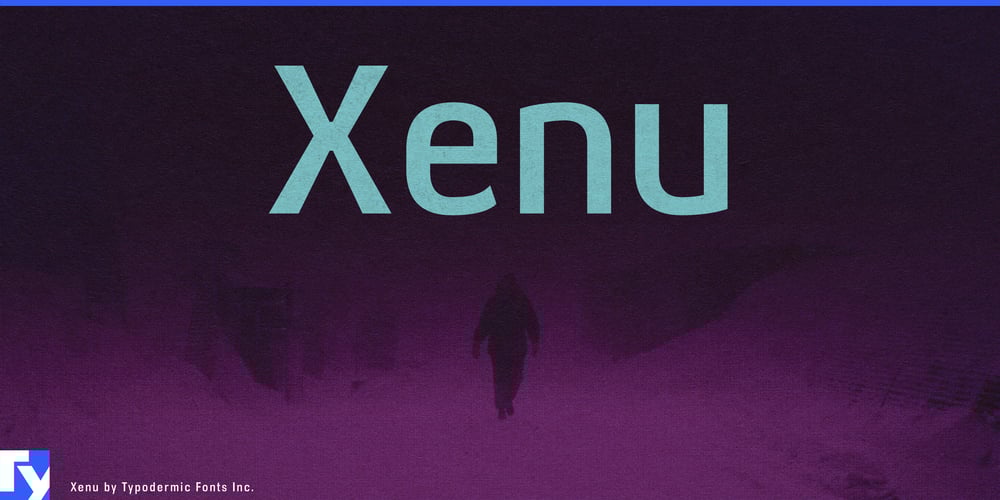
Xenu
Xenu font
Xenu Font Family was designed by Ray Larabie and published by Typodermic. Xenu contains 8 styles and family package options. In the realm where precision meets design, Xenu emerges as the epitome of technical sophistication. This typeface, inspired by the uncompromising clarity of industrial standards like DIN, radiates an aura of cold efficiency that commands attention in any professional context.Xenu’s impassive letterforms are meticulously crafted to embody the future of industrial aesthetics. Its rigid structure and clinical lines serve as a visual representation of unwavering accuracy, making it the ideal choice for projects that demand absolute precision. From blueprints to data visualizations, Xenu imbues every character with a sense of mechanical perfection. With four weights and their italic counterparts, Xenu offers a spectrum of typographic intensity. This range allows for nuanced communication in technical documents, from the subtle emphasis in user manuals to the bold declarations in engineering reports. Each weight maintains Xenu’s core identity—a typeface that speaks the language of technology with fluency and authority.Xenu’s utility extends far beyond its visual impact. It serves as a linguistic powerhouse, supporting an extensive array of Latin-based European writing systems. This typeface effortlessly traverses linguistic boundaries, from the fjords of Norway to the steppes of Central Asia, ensuring your technical message maintains its clarity across diverse markets.In a world driven by data and precision, Xenu stands as the vanguard of typographic communication. It’s a statement of technological prowess, a declaration of commitment to exactitude. Choose Xenu, and let your designs speak with the cold, calculated confidence of the digital frontier.